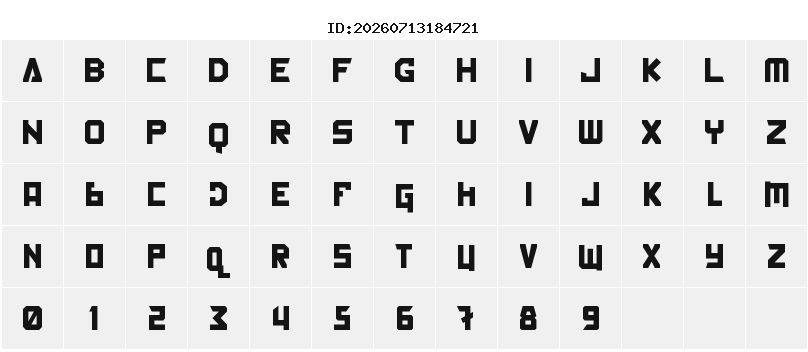
Back In The USSR DL.ttf is a modern, elegant sans-serif font designed for ultimate readability and visual harmony. Perfect for branding, headlines, web design, and print materials.